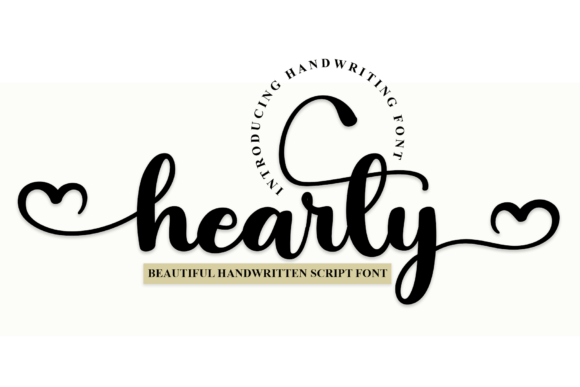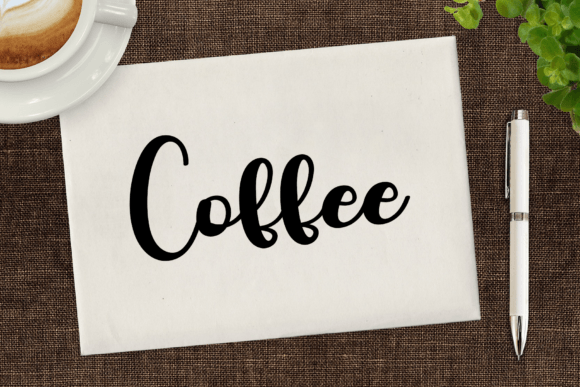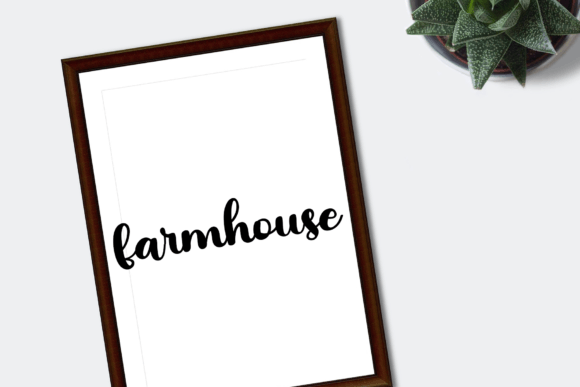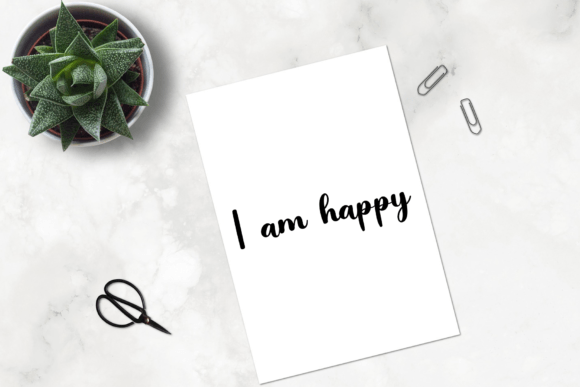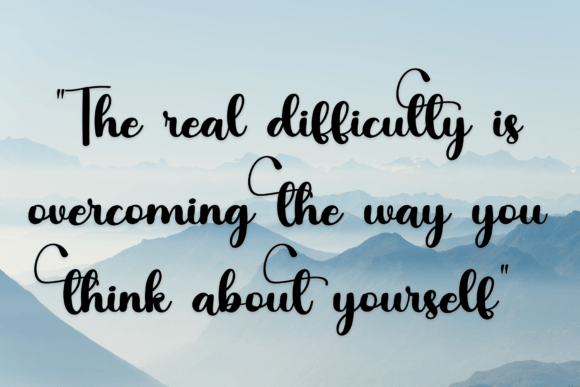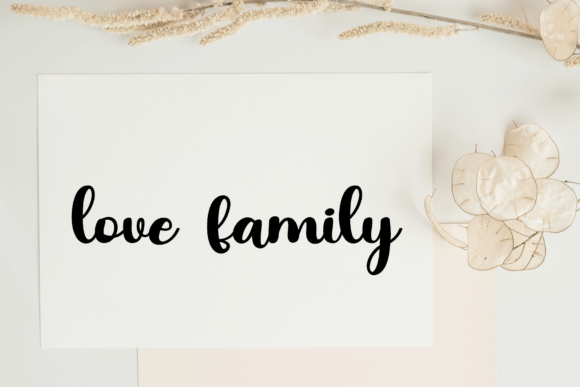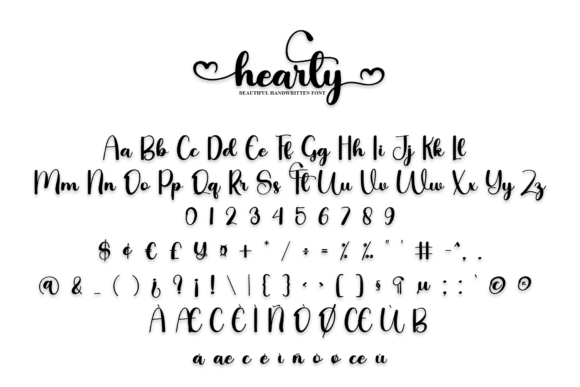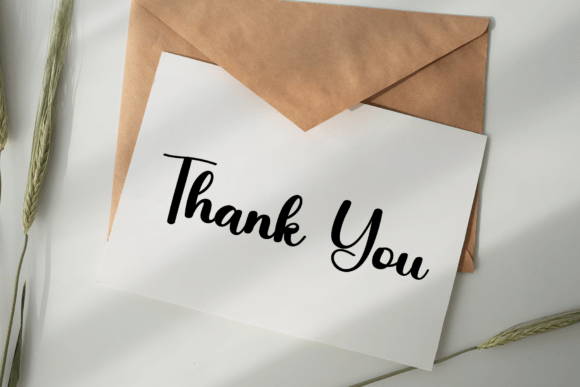
Hearty Font
About Hearty Font
Hearty, an elegant and feminine typeface, emerges as a perfect choice for various design applications, especially well-suited for headlines. Its refined design makes it particularly fitting for wedding stationery, invitations, florist branding, packaging, and social media posts.
The charm of Hearty lies in its elegant and feminine characteristics. The typeface has been crafted with precision, showcasing a design that exudes sophistication and a touch of romance. This makes it an ideal choice for projects that demand a certain level of grace and style.
Consider utilizing Hearty for wedding stationery, where the font’s elegance can enhance the romantic atmosphere of invitations, save-the-date cards, and other wedding-related materials. Its versatility extends to florists’ branding, packaging, and social media posts, where the typeface’s feminine appeal can beautifully complement floral designs and delicate aesthetics.
The adaptability of Hearty allows it to shine across various digital and print applications. Whether gracing the pages of a website or adding an elegant touch to physical materials, Hearty brings a level of sophistication that elevates the overall visual impact.
In essence, Hearty is not just a typeface; it’s a design asset that lends an elegant and feminine touch to your projects. Embrace its refined characteristics and let Hearty be the choice that adds a touch of romance and sophistication to your headlines, making them stand out with grace and style.